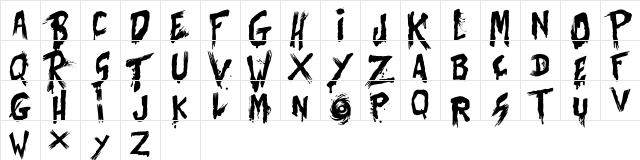
Bates Shower Regular
Design Context for Bates Shower Typeface
Bates Shower is a composed and adaptable typeface that performs quietly and consistently across a wide range of design contexts.